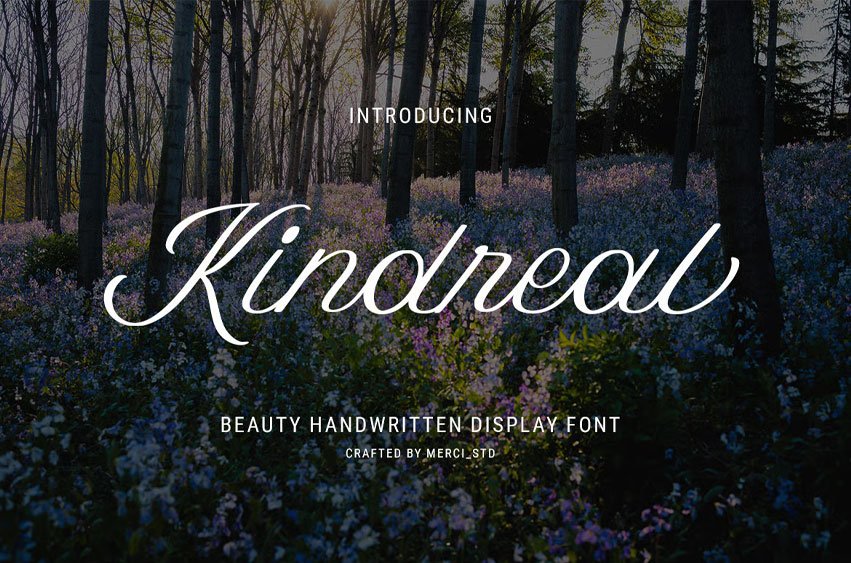
Kindreal Font is a beauty handwritten display font with soft elegant curves and refined script details. This font is ideal for wedding invitations, beauty branding, feminine packaging, social media posts, logos, and luxury visual projects.
Kindreal offers a delicate and premium handwritten style for beautiful typography compositions.
- Uppercase Letters
- Ligature & Alternate Character
- Unique Hand-Drawn Style